Font rasterization
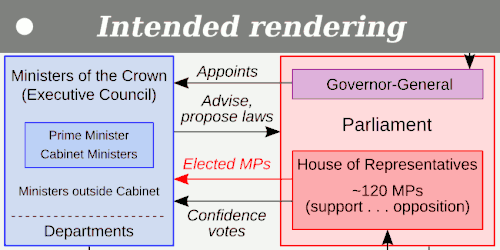
upright= multiplier from 1.70 to 1.75 results in significant and mutually distinct rendering anomalies, possibly due to rounding errors resulting from use of integer font sizes.Font rasterization is the process of converting text from a vector description (as found in scalable fonts such as TrueType fonts) to a raster or bitmap description. This often involves some anti-aliasing on screen text to make it smoother and easier to read. It may also involve hinting—information embedded in the font data that optimizes rendering details for particular character sizes.
Types of rasterization
The simplest form of rasterization is simple line-drawing with no anti-aliasing of any kind. In Microsoft's terminology, this is called bi-level (and more popularly "black and white") rendering because no intermediate shades (of gray) are used to draw the glyphs. (In fact, any two colors can be used as foreground and background.)[1] This form of rendering is also called aliased or "jagged".[2] This is the fastest rendering method in the sense that it requires the least computational effort. However, it has the disadvantage that rendered glyphs may lose definition and become hard to recognize at small sizes. Therefore, many font data files (such as TrueType) contain hints that help the rasterizer decide where to render pixels for particularly troublesome areas in the glyphs, or sets of hand-tweaked bitmaps to use at specific pixel sizes.[1] As a prototypical example, all versions of Microsoft Windows prior to Windows 95 (e.g. Windows 3.1) only provided this type of built-in rasterizer.[2]
A more complicated approach is to use standard anti-aliasing techniques from computer graphics. This can be thought of as determining, for each pixel at the edges of the character, how much of that pixel the character occupies, and drawing that pixel with that degree of opacity. For example, when drawing a black (000000) letter on a white (FFFFFF) background, if a pixel ideally should be half filled (perhaps by a diagonal line from corner to corner) it is drawn 50% gray (BCBCBC). Over-simple application of this procedure can produce blurry glyphs. For example, if the letter includes a vertical line that should be one pixel wide but falls exactly between two pixels, it appears on screen as a two-pixel-wide gray line. This blurriness trades clarity for accuracy. However, modern systems often force lines to fall within integral pixel coordinates, which makes glyphs look sharper, but also makes lines slightly wider or thinner than they would have looked on a printed sheet of paper.
Most computer displays have pixels made up of multiple subpixels (typically one each for red, green, and blue, which are combined to produce the full range of colours). In some cases, particularly with flat panel displays, it is possible to exploit this by rendering at the subpixel resolution rather than using whole pixels, which can increase the effective resolution of the screen. This is generally known as subpixel rendering. One proprietary implementation of subpixel rendering is Microsoft's ClearType.
Currently used rasterization systems
In modern operating systems, rasterization is normally provided by a shared library common to many applications. Such a shared library may be built into the operating system or the desktop environment, or may be added later. In principle, each application may use a different font rasterization library, but in practice most systems attempt to standardize on a single library.
Microsoft Windows has supported subpixel rendering since Windows XP. On the other hand, the standard Microsoft rasterizer without ClearType is an example of one that prioritizes type designer's intent of clarity; by forcing text into integral coordinate positions, following the type designer's intent of hinting, and even not antialiasing certain fonts at certain sizes, following the type designer's intent of the gasp table, it becomes easier to read on the screen, but may appear somewhat different when printed. This has changed with Direct2D/DirectWrite shipping on Windows 7 and Windows Vista platform update, allowing subpixel text positioning to 1/16 pixel sizes.[3]
Mac OS X's Quartz is distinguished by the use of subpixel positioning; it does not force glyphs into exact pixel locations, instead using various antialiasing techniques,[4] including subpixel rendering, to position characters and lines to appear further from the type designer's intent of hinting and closer to the original outline. The result is that the on-screen display looks extremely similar to printed output, but can occasionally be difficult to read at smaller point sizes. The Quartz renderer has, since macOS Mojave, removed subpixel rendering, relying purely on greyscale anti-aliasing instead. This change is acceptable to HiDPI "retina" screens, but makes text on external monitors harder to read.[5]
Most other systems use the FreeType library, which depending on the settings, can fall anywhere between Microsoft's and Apple's implementations; it supports hinting and anti-aliasing, and optionally performs subpixel rendering and positioning. FreeType also offers some features not present in either implementation such as color-balanced subpixel rendering and gamma correction.[6]
Applications may also bring their own font rendering solutions. Graphics frameworks like Skia Graphics Engine (used by Google Chrome) occasionally use their own font renderer. Video games and other 3D applications may also need faster, GPU-based renderers such as various SDF-based renderers and "Slug".[7]